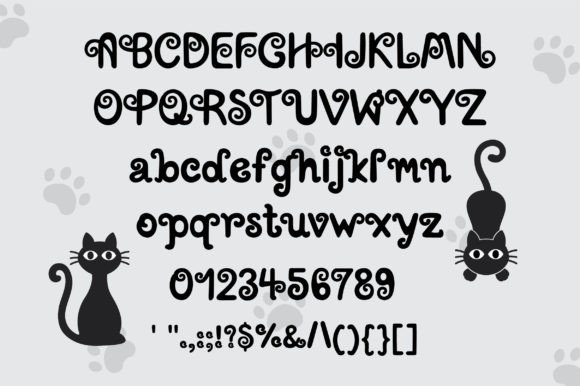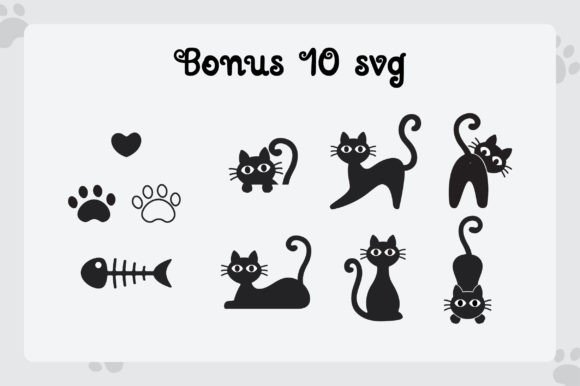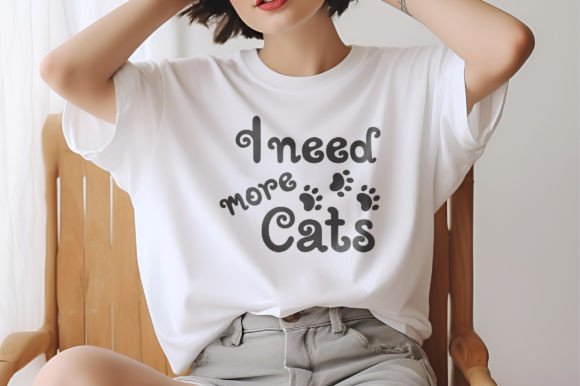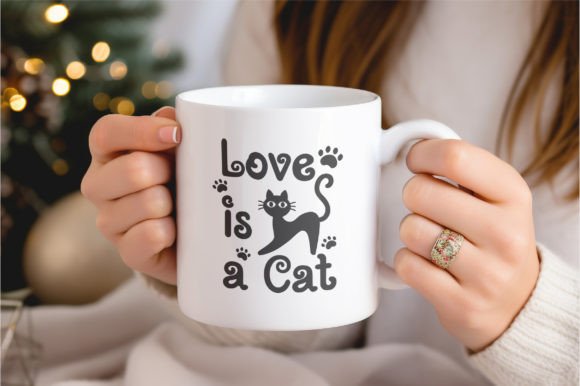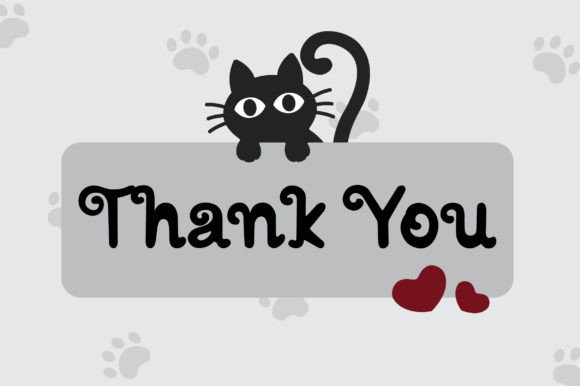
Introduction to Meow Meow Font
Meow Meow is a cute font with curved lines at the end of the letters that feature cats.
Make your project cute and fun You can create a variety of works with these letters.
Meow Meow Font offers exceptional quality and versatility, making it a valuable addition to your design toolkit. Whether you’re creating for personal projects or commercial use, Meow Meow Font delivers professional results.